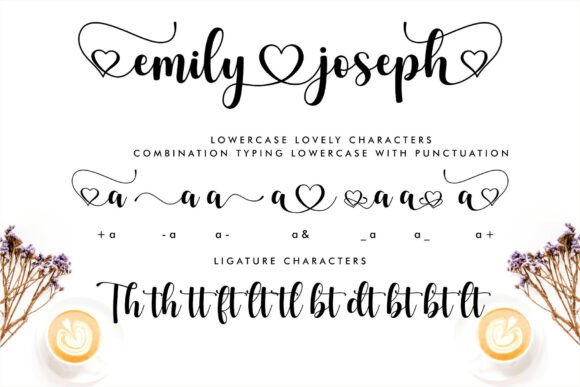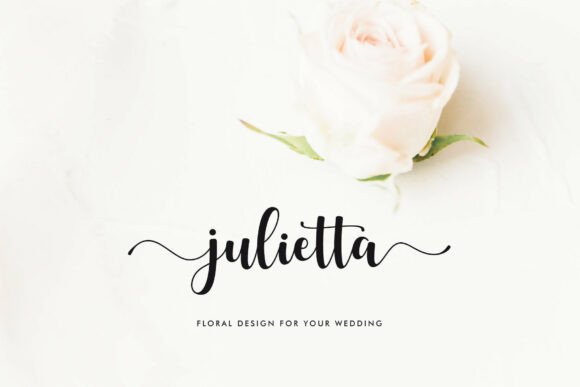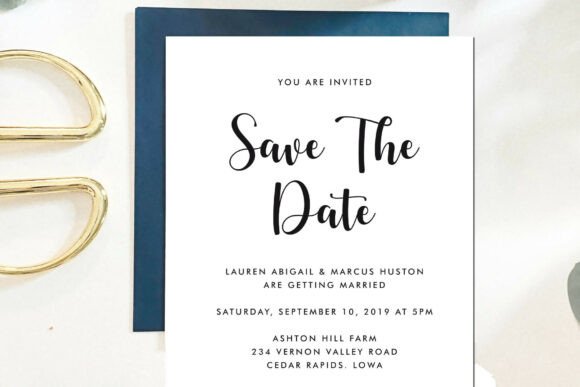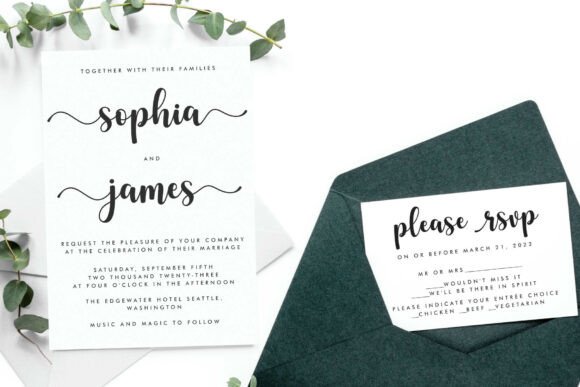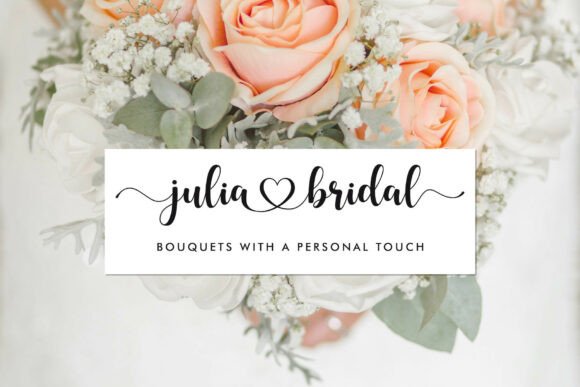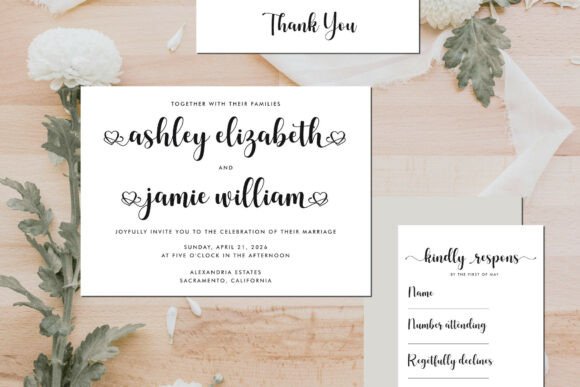
Introduction to Emily Joseph Font
Fall in love with Emily Joseph, a beautiful, flowing script font designed to convey a feeling of romance, intimacy, and handcrafted elegance.
This lovely typeface is characterized by its signature heart-shaped swashes that seamlessly connect the letters, transforming a simple name or phrase into a loving, decorative gesture The strokes are smooth and consistent, mimicking a fluid, personalized signature.
Key Features of Emily Joseph Font
Why Choose Emily Joseph Font?